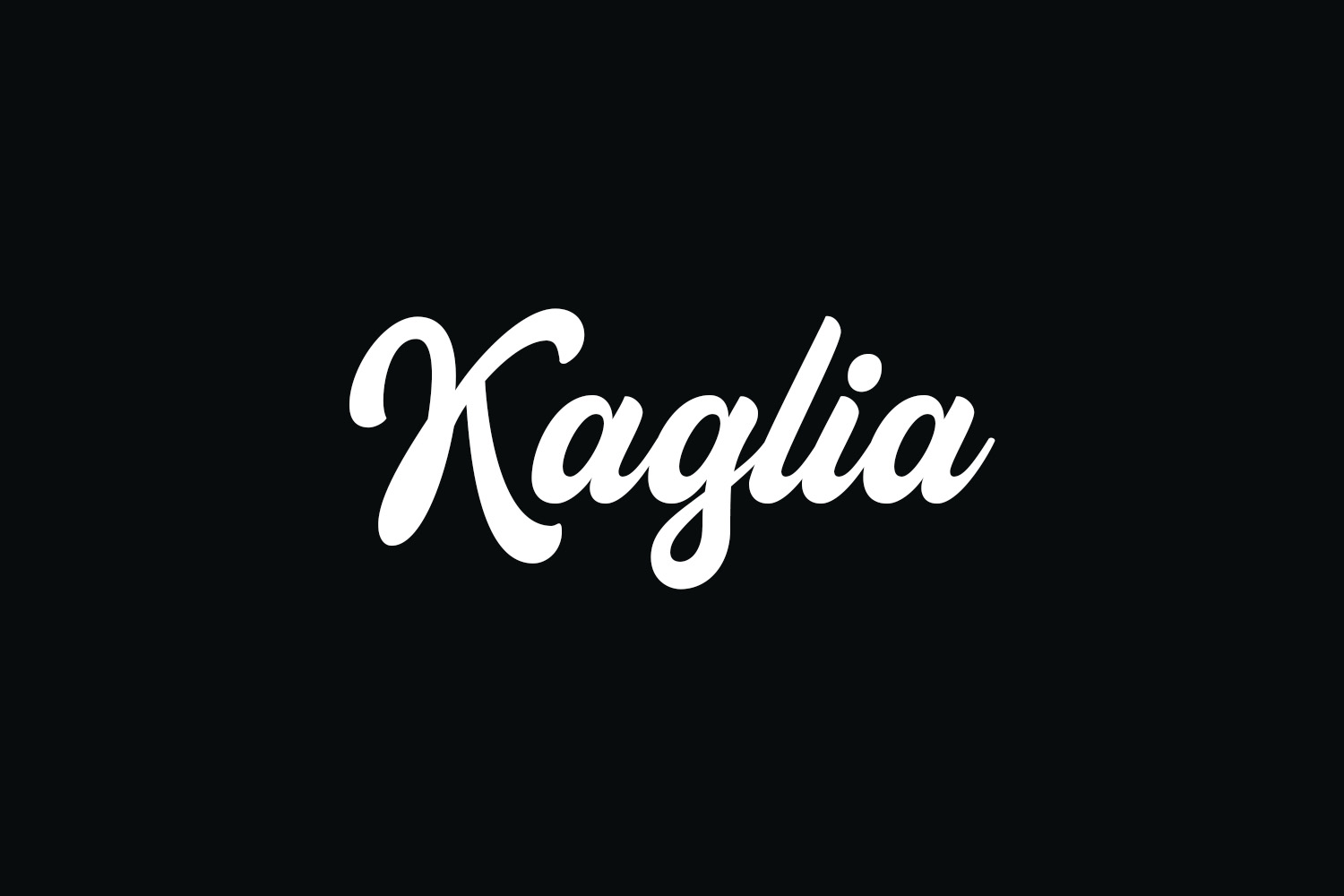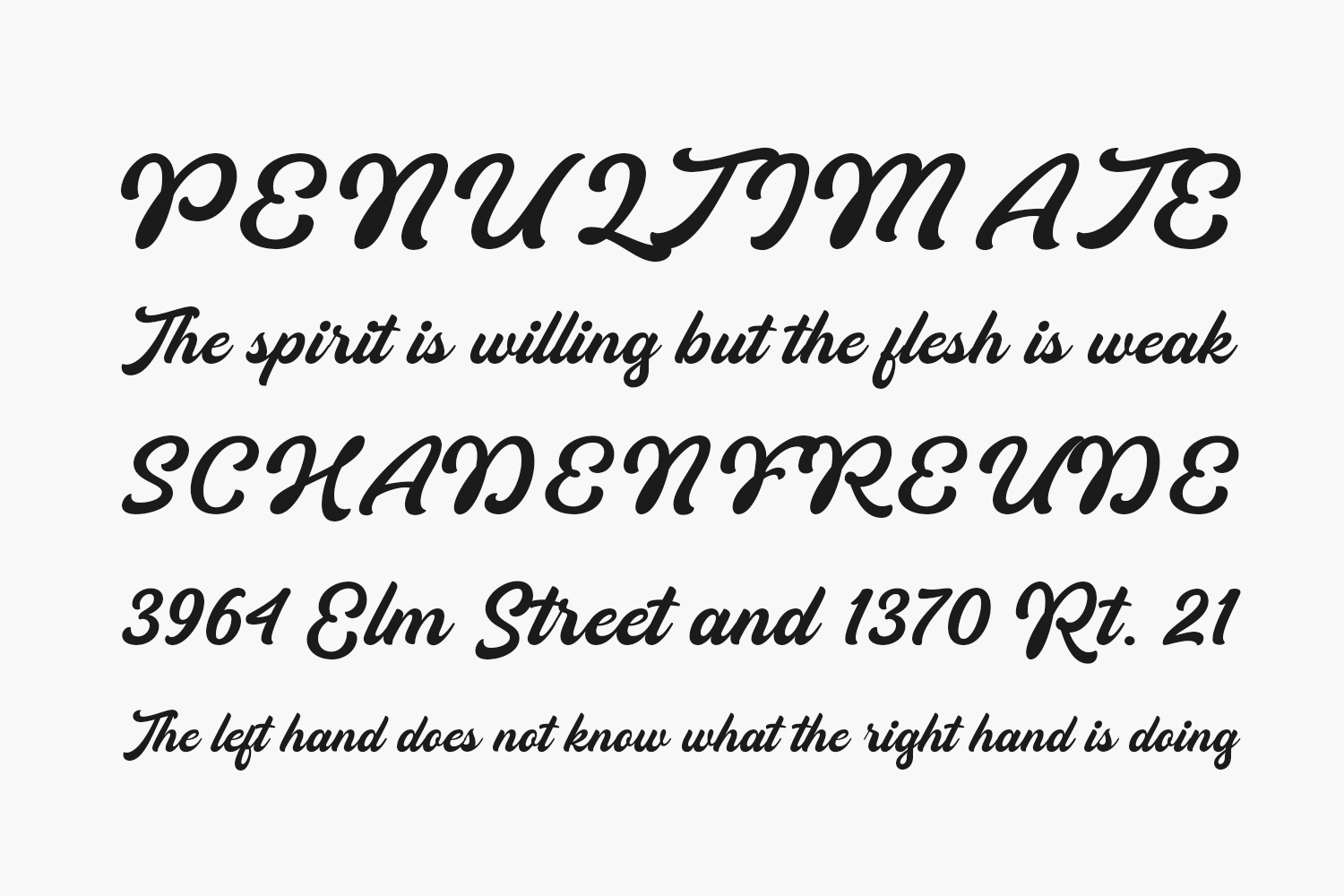
Introducing Kaglia Free Font, a captivating script font that exudes charm, boldness, and a touch of retro flair. This unique typeface radiates strength, confidence, and dynamism, infusing your designs with an abundance of stylish personality. Elevate your projects with the distinctive character of Kaglia and make a lasting impression. Kaglia Free Font is free for personal use only. Please purchase the full version for commercial use.
Designed by Letterhend Studio